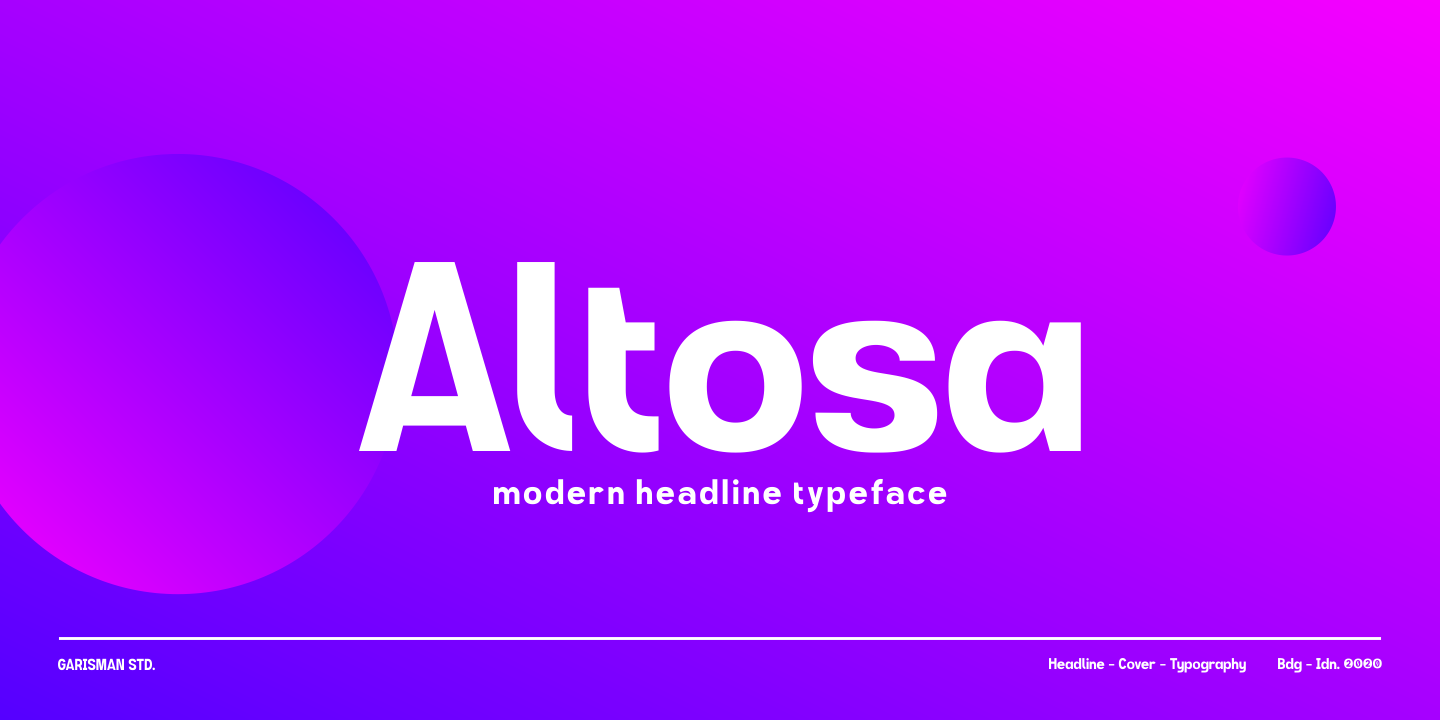
GR Altosa Font is perfect for various applications including contemporary corporate branding, modern tech startup logos, innovative product packaging, sleek web interfaces, progressive marketing materials, minimalist architectural presentations, cutting-edge app designs, sophisticated business communications, dynamic poster designs, and forward-thinking advertising campaigns.
What makes GR Altosa Font so exciting is its exceptional fusion of geometric precision and contemporary elegance that creates an atmosphere of innovation and professional sophistication. This modern typeface features clean, architectural letterforms with refined proportions and contemporary details that evoke the progressive spirit of modern design and technological advancement. The font's sophisticated character and geometrically-inspired aesthetic make it ideal for brands that want to convey innovation, reliability, and contemporary excellence to audiences who appreciate modern design principles and forward-thinking business approaches.
GR Altosa Font family includes multiple weights and styles: Thin, Light, Regular, Medium, Bold, Black, Condensed, Extended, and geometrically crafted Italic variants. Each family member maintains the font's signature geometric sophistication while offering different levels of visual impact and stylistic flexibility for diverse contemporary and professional applications.
The GR Altosa Font Free Download provides designers with access to a geometrically-inspired typeface that excels in technology and corporate markets. Whether you're creating modern startup identities, designing innovative marketing materials, or developing cutting-edge digital experiences, this font delivers the progressive aesthetic needed to attract forward-thinking audiences and establish contemporary brand positioning. Its geometric styling and modern essence make it particularly effective for tech companies, architectural firms, and innovation-focused businesses.
Typography engineers will appreciate the mathematical precision and contemporary craftsmanship in GR Altosa Font's construction. The font features precisely engineered letterforms with geometric proportions, optimized kerning for modern applications, and carefully balanced details that ensure exceptional readability while maintaining its sophisticated character. From corporate presentations to tech startup interfaces, this typeface maintains its innovation and professional appeal across all contemporary contexts.
For modern web designers, GR Altosa Font provides outstanding performance in contemporary digital environments and progressive user interfaces. The font's technical specifications are optimized for various screen resolutions and modern devices while preserving the clean, geometric edges that define its sophisticated character. Its versatility makes it suitable for both static corporate content and dynamic interactive experiences.
Creative professionals working in technology, architecture, corporate communications, and innovative design will find GR Altosa Font to be an essential tool for projects requiring contemporary visual communication. The font's ability to convey progress, reliability, and geometric sophistication makes it invaluable for brands targeting tech-savvy demographics and professionally-minded audiences.
Design agencies specializing in corporate and technology brands appreciate GR Altosa Font's versatility in creating memorable modern identities.